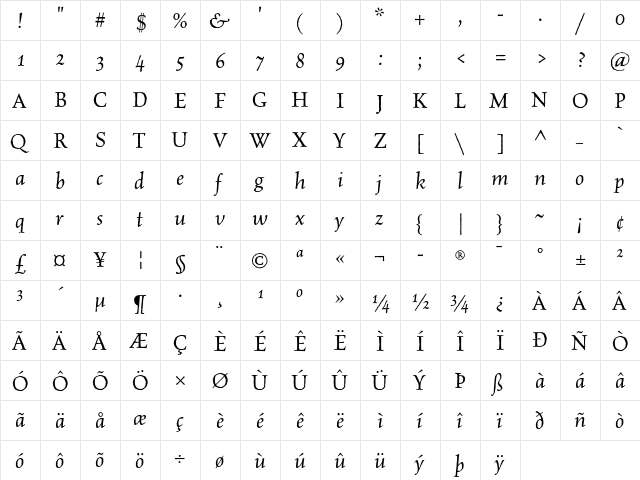
Celestia Antiqua Italic
Design Context for Celestia Antiqua Typeface
Celestia Antiqua offers clean, dependable letterforms without strong stylistic allegiance, making it a practical choice for designers who need flexibility. The slanted form adds forward momentum and visual energy.
Pro Tip: Use Celestia Antiqua for emphasis, pull quotes, and subheadings where its slanted energy can add rhythm to the layout.